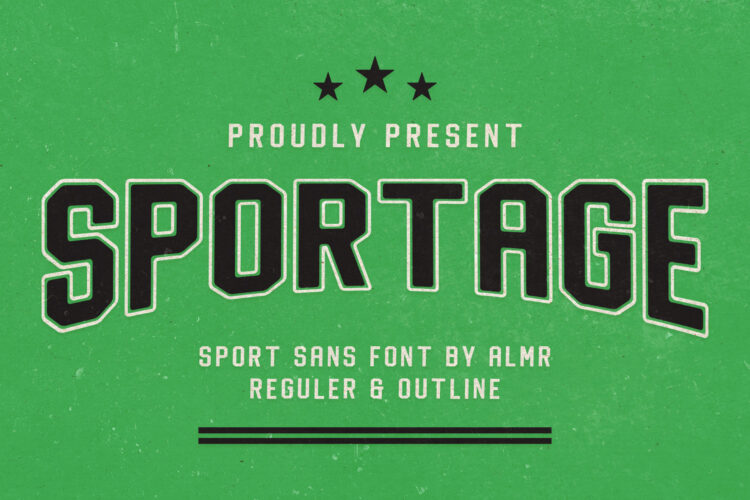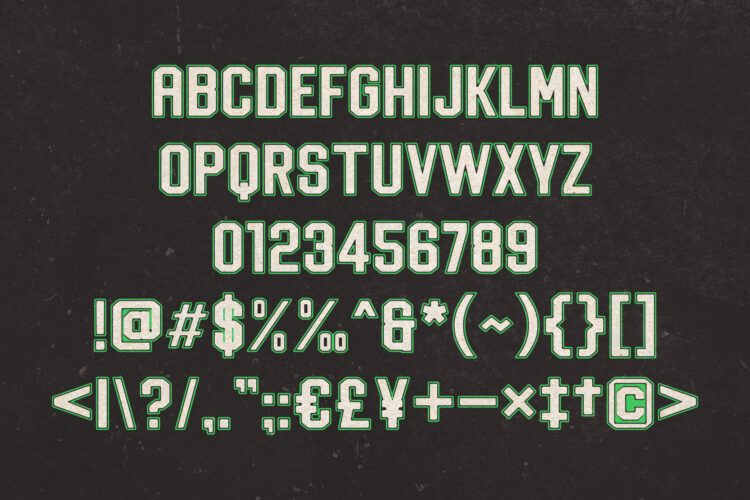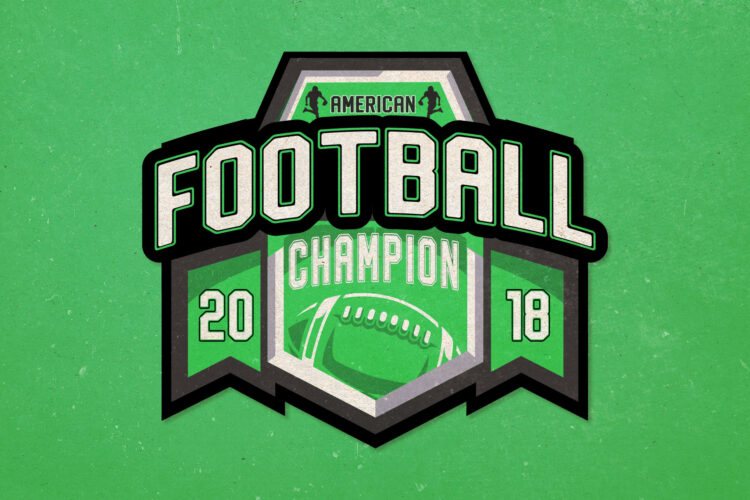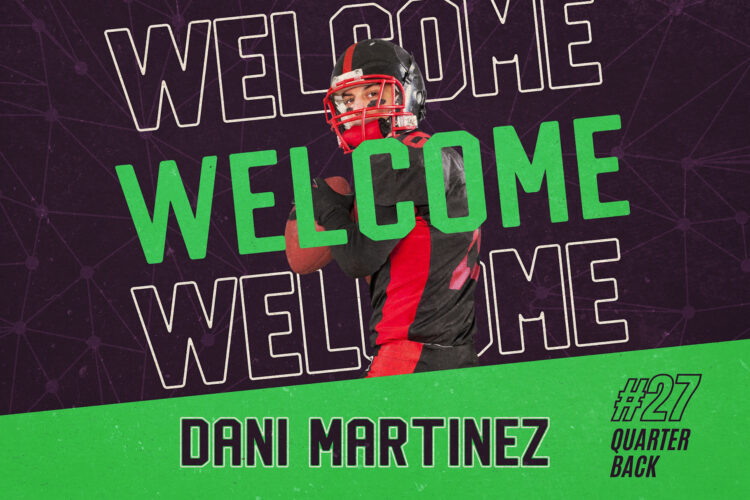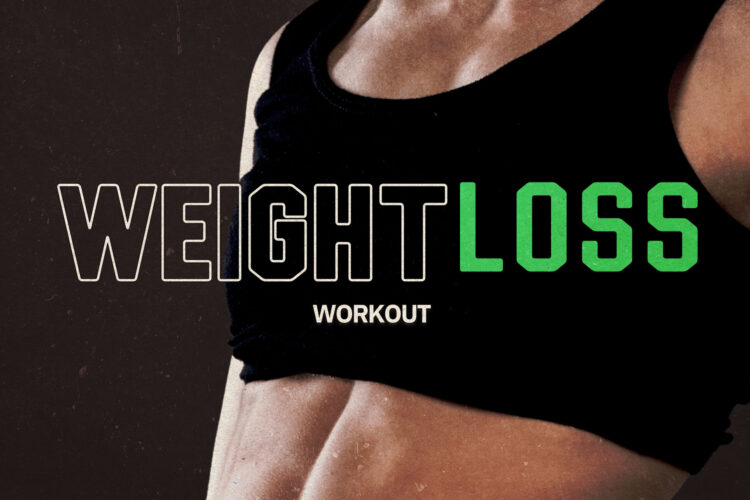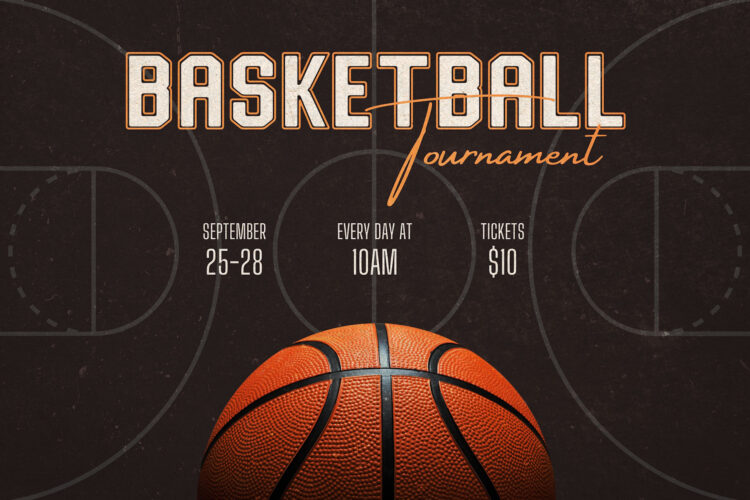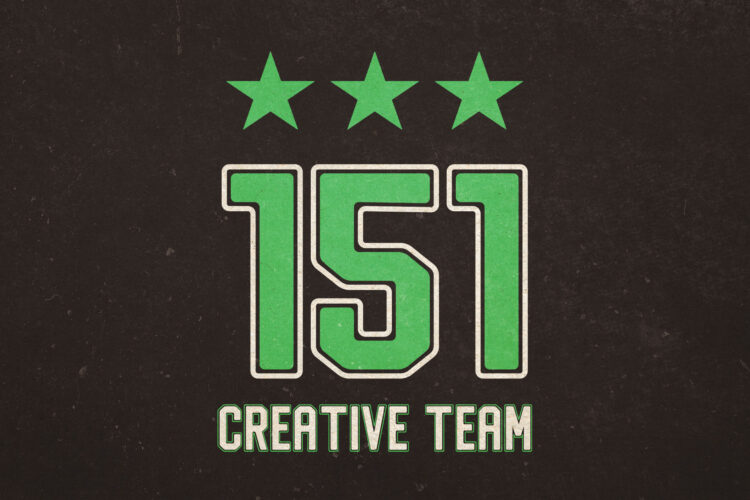
Sportage is a bold retro sporty font, designed to bring energy and style to any professional branding project. Ideal for logotypes, watermarks, posters, promotions, product packaging, and more, this font captures the essence of vintage athletic design with its varsity-inspired look. Each letter exudes a dynamic, sporty vibe, perfect for making your brand stand out. Sportage comes in two versatile versions—Regular and Outline—giving you the flexibility to create striking and memorable designs for any project.
Sportage